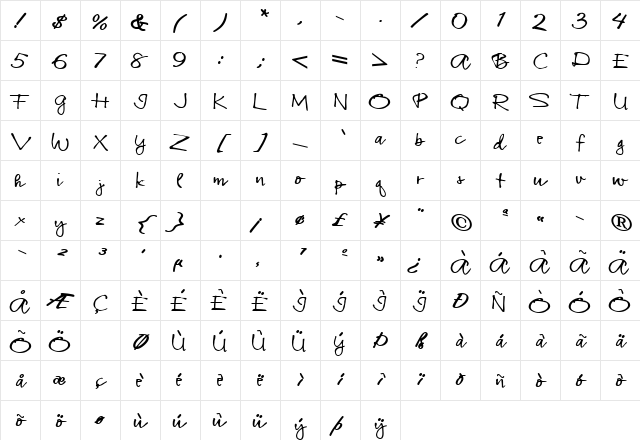
TransPose95 Bold Free Font
TransPose95 Bold
TransPose95 Family
Design Context for TransPose95
TransPose95 is a composed and adaptable typeface that performs quietly and consistently across a wide range of design contexts. Its bold stroke weight gives it real presence on the page.